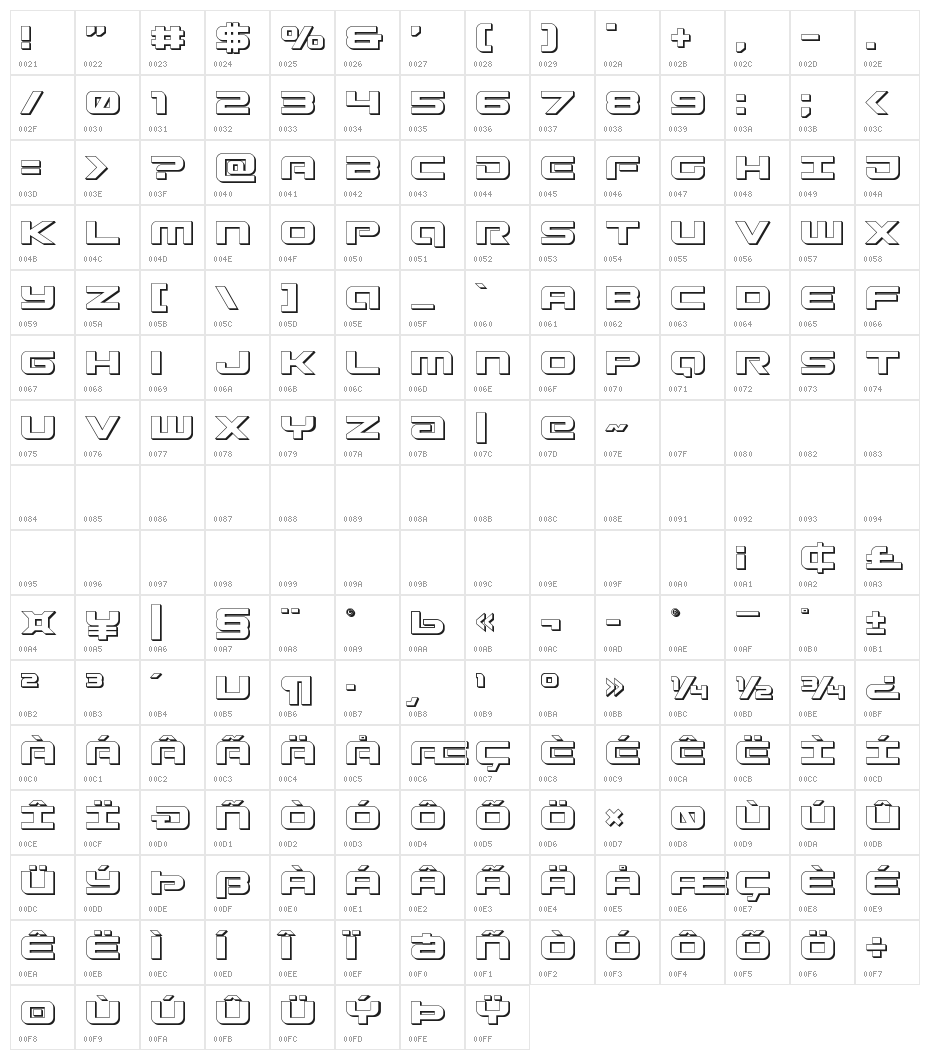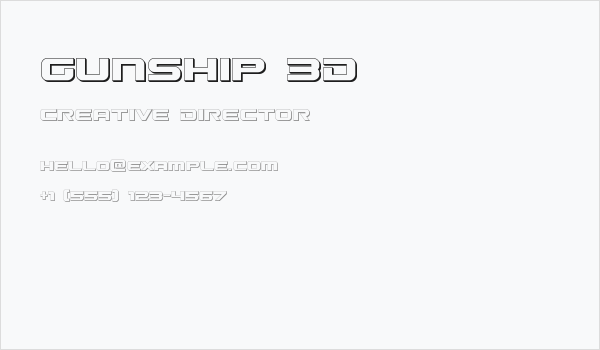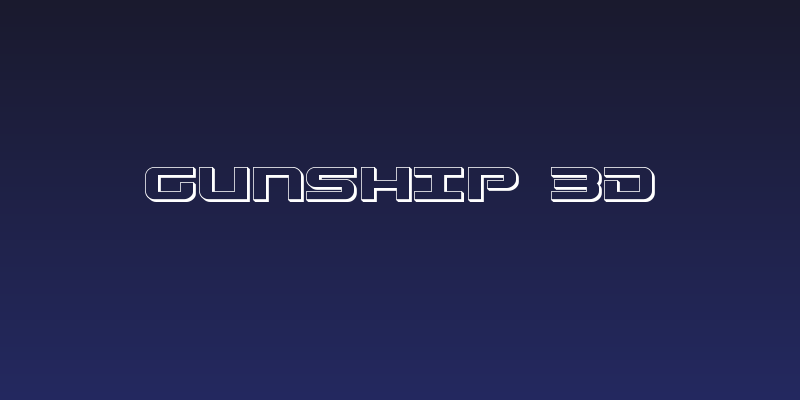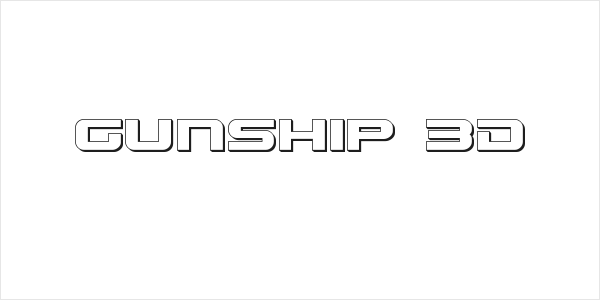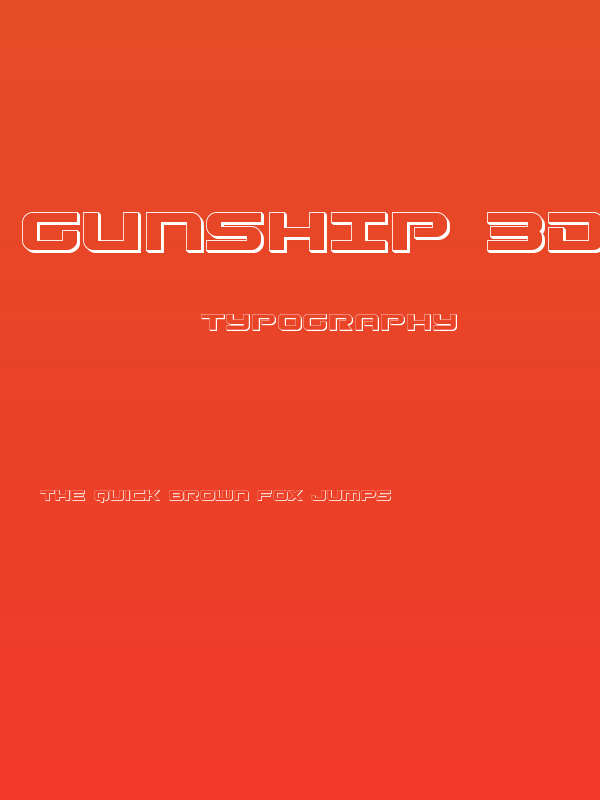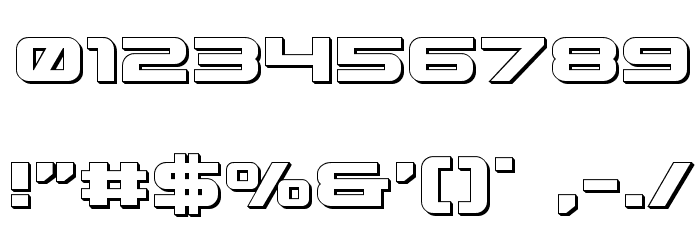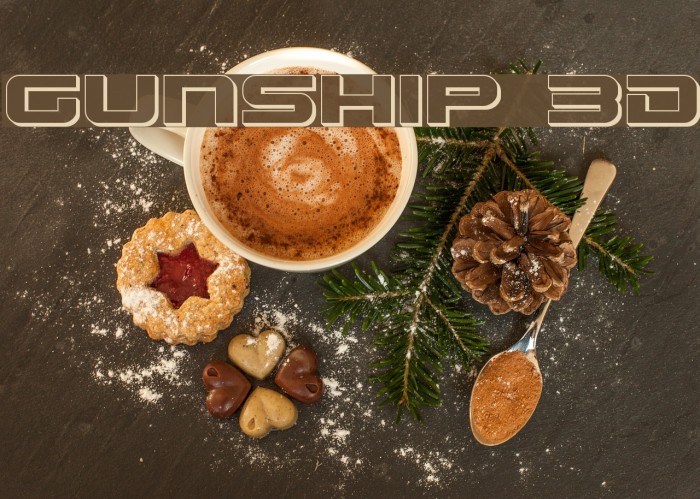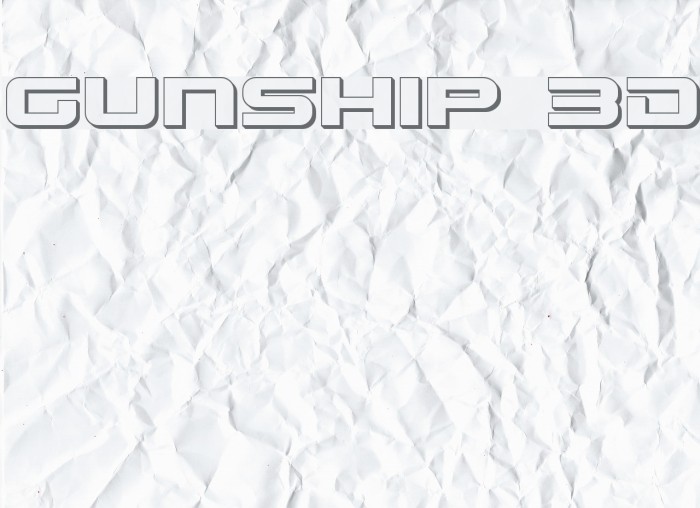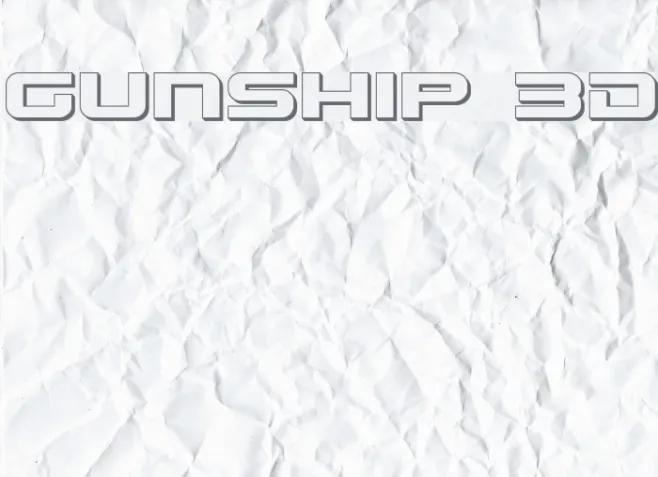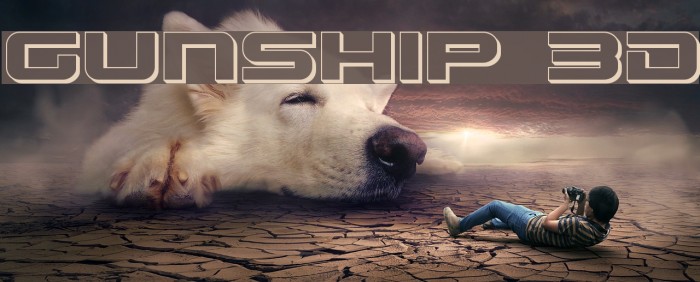
Gunship 3D Font
Gunship 3D Description
This font features a bold, futuristic design with a three-dimensional effect that gives each character a sense of depth and structure. The geometric shapes are consistent throughout the alphabet, creating a cohesive and modern look. The uppercase and lowercase letters are distinct yet maintain a uniform style, making them easily readable. The numbers and special characters follow the same design principles, ensuring versatility across different uses. The font's clean lines and structured appearance make it suitable for projects that require a contemporary and tech-savvy aesthetic.
| Proposed Projects | Ideal for video game titles, tech company logos, sci-fi movie posters, and digital interfaces. |